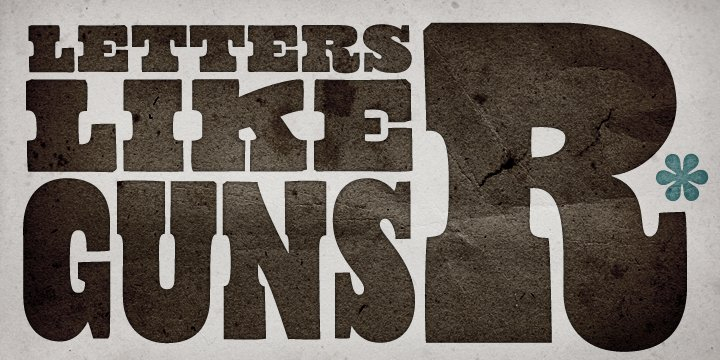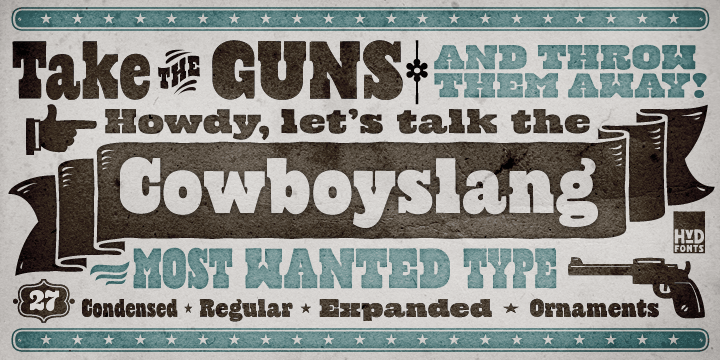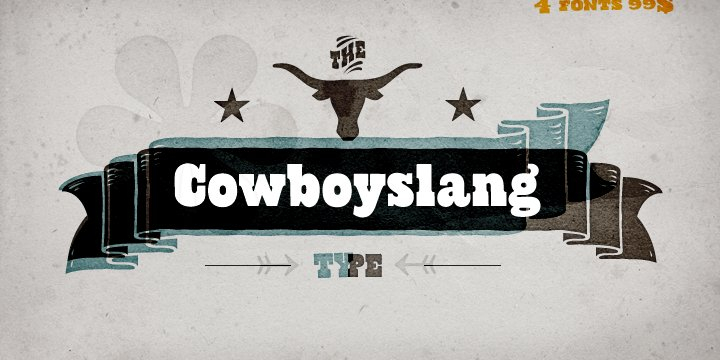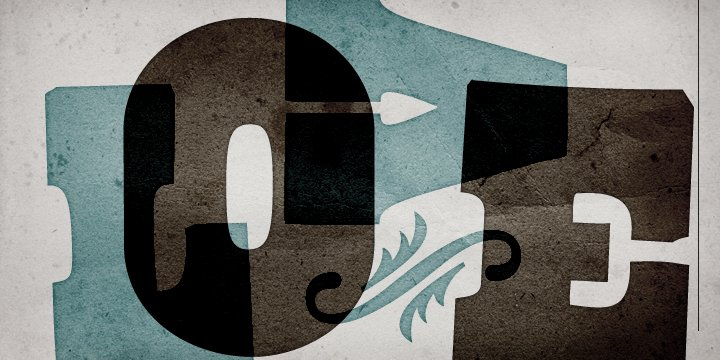
Cowboyslang is a dingbat, western and display slab font family. This typeface has four styles and was published by HVD Fonts.
Type designer Hannes von Döhren created Cowboyslang, a display typefamily with a Wild West flair. It consists of three widths plus fitting ornaments. Although it is based on the slab serif typefaces from the nineteenth century Von Döhren gave it a contemporary feeling.
Cowboyslang has an extended character set to support also Central and Eastern European languages.